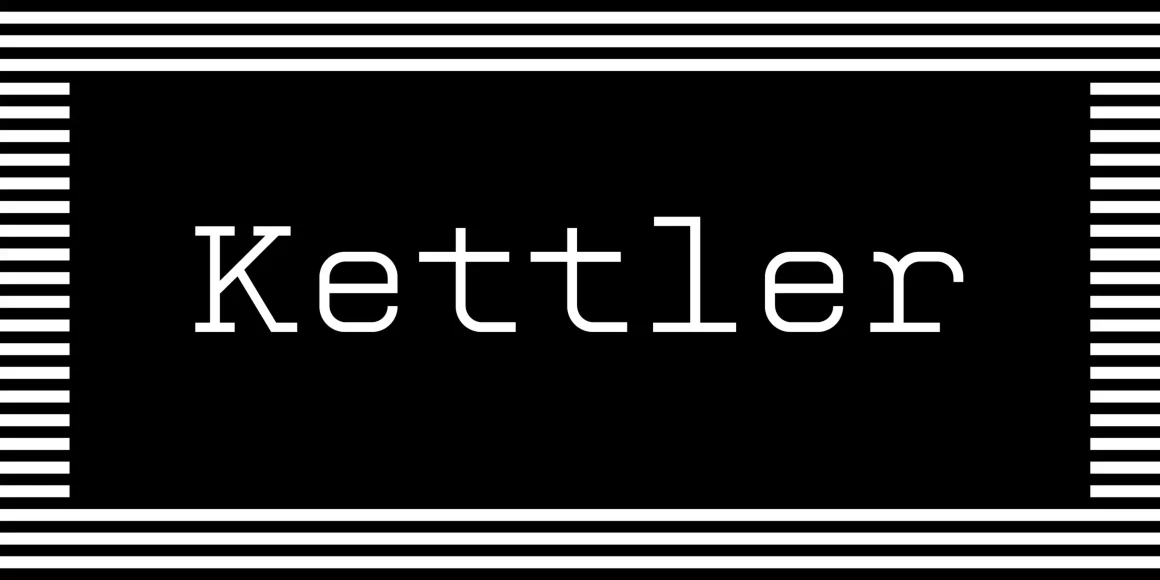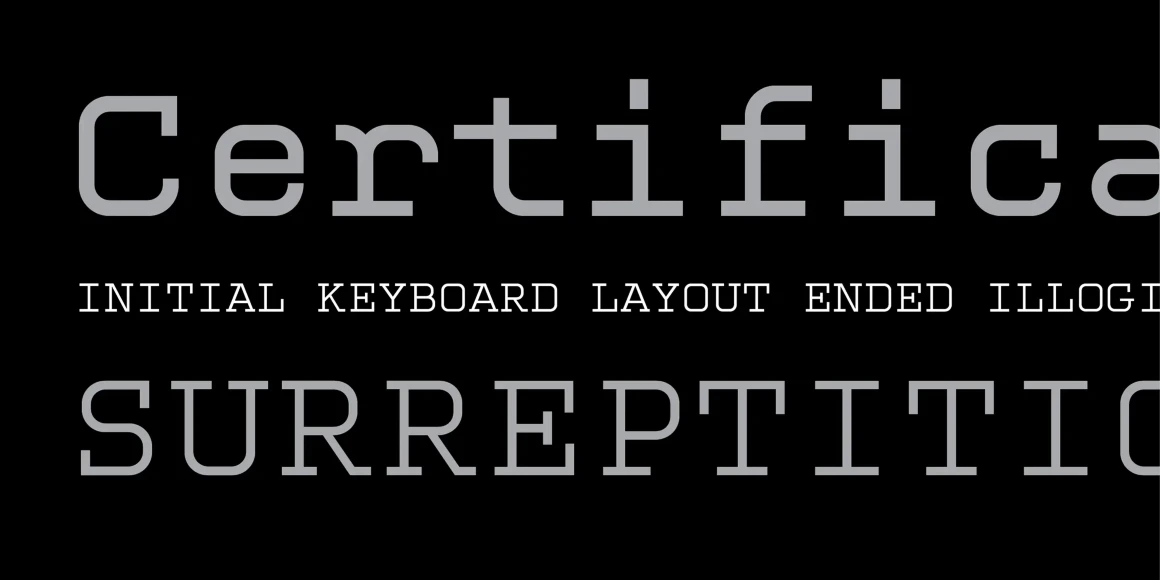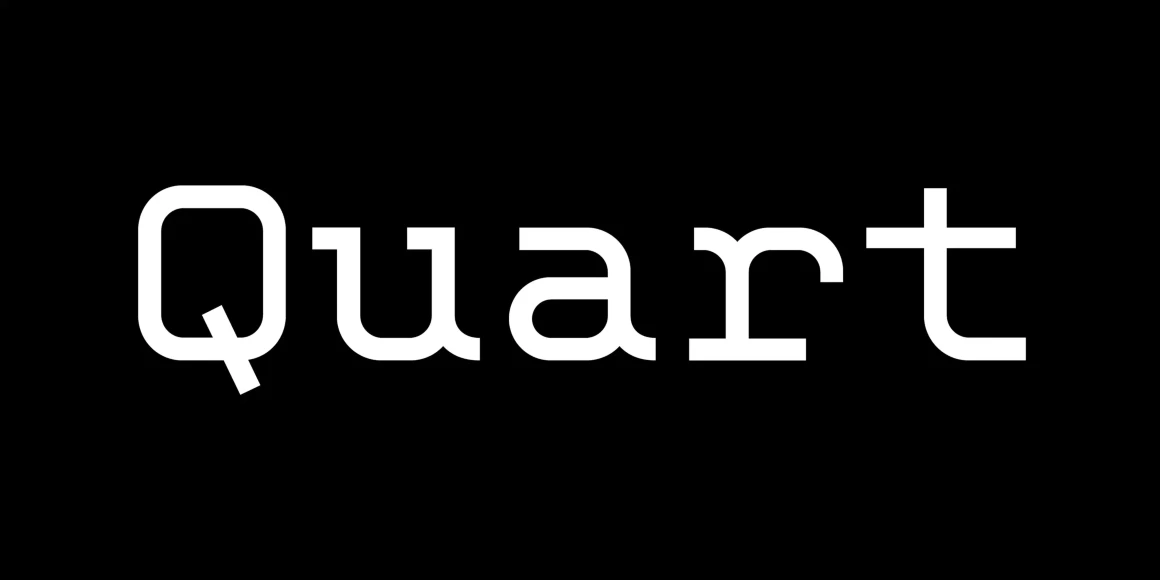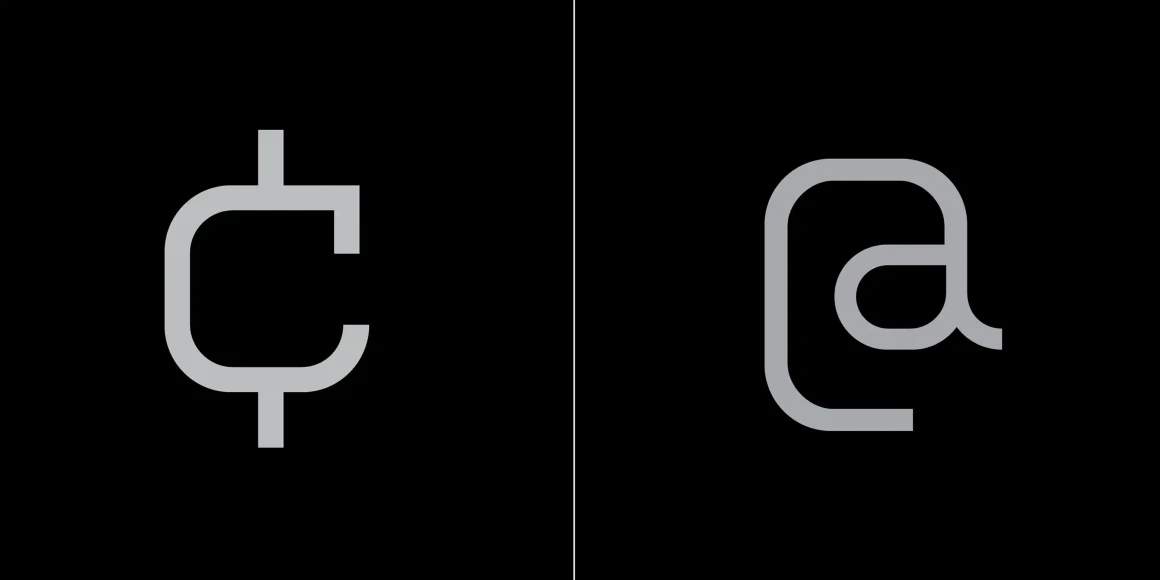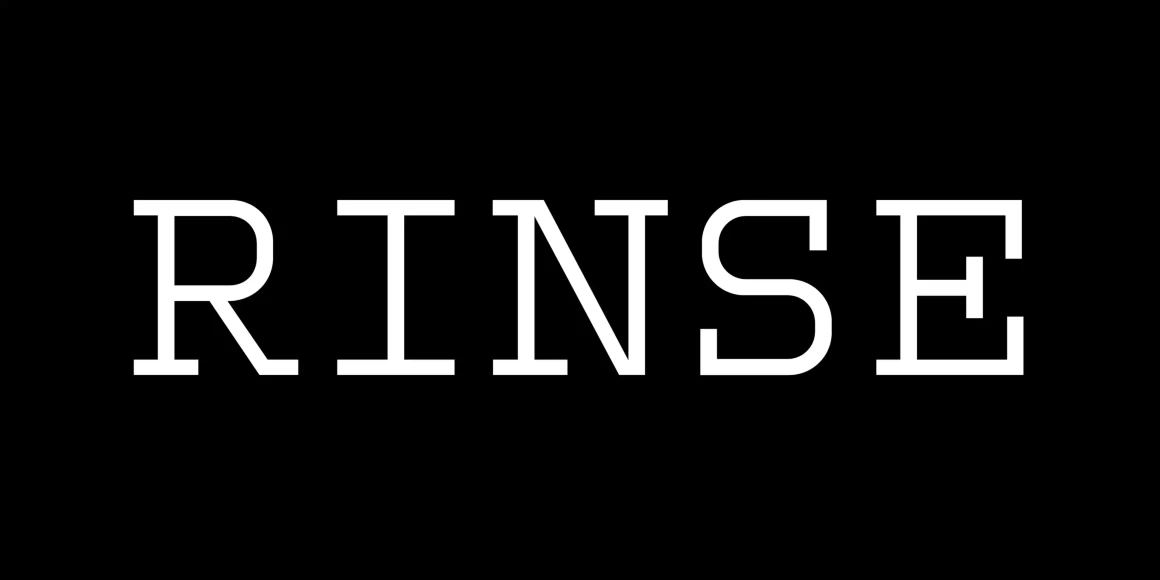
Kettler
From Process Type Foundry
Kettler is a simple monospaced font named in tribute to designer Howard ‘Bud’ Kettler, whose ubiquitous Courier is found on computers everywhere. A subtle blend of utilitarian slabs serifs and modern curves, Kettler is ideal for tabular information but is also comfortable in display and headline use.
Designed by Eric Olson